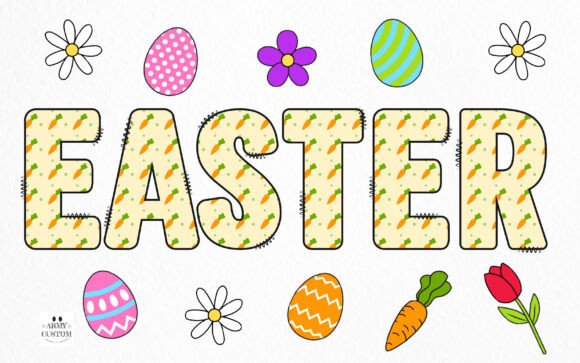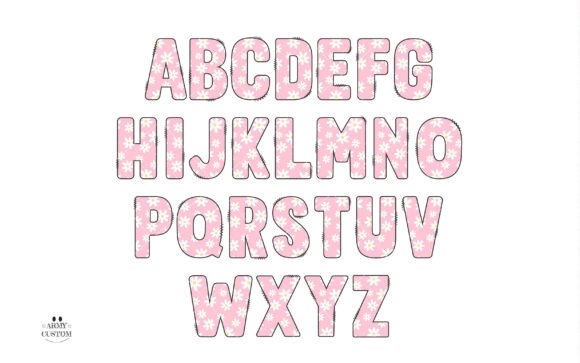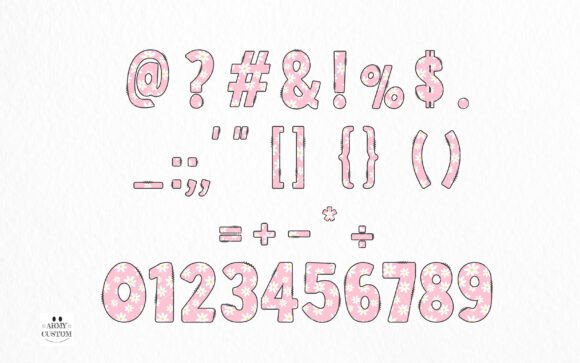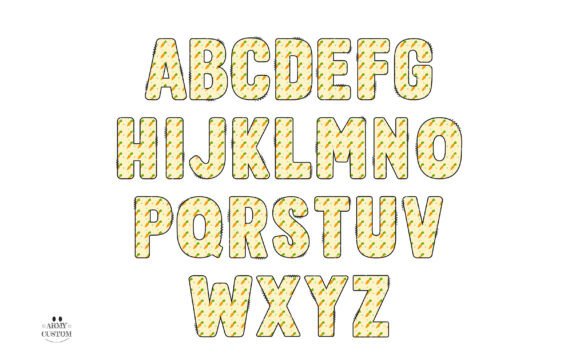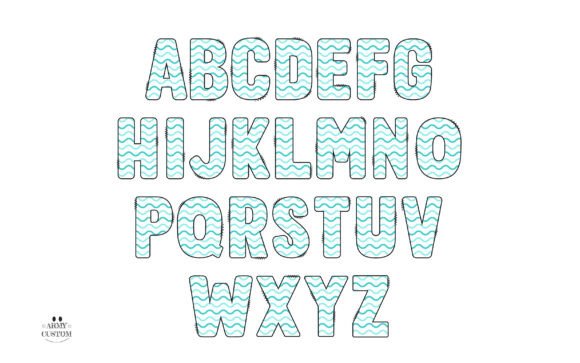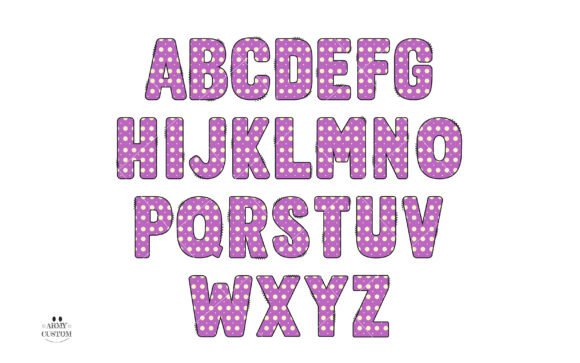
Unlocking the Joy of Easter with the Easter Bundle Font No.12
As a designer, I’ve had my fair share of moments where finding the perfect font felt like searching for a needle in a haystack. I recall working on a project for an Easter-themed craft fair, and my client requested a font that captured the essence of springtime joy. After hours of scouring through font libraries, I stumbled upon the Easter Bundle Font No.12, and it was love at first sight! ✨
I’ve had the pleasure of working with the Easter Bundle Font No.12, and here’s my honest review:
- ✅ The font’s rhythmic charm and joyful exhilaration perfectly capture the spirit of Easter celebrations.
- ✨ The OpenType features and glyphs offer a wide range of creative possibilities, making it more than just a font – it’s an artistic tool.
- ✅ The font’s vibrant aesthetic effortlessly transcribes ideas into delightful visual narratives.
As with any font, there are a few quirks to consider:
- ⚠️ Some users might find the font’s playful nature too whimsical for certain design projects.
- 🤔 The font’s eclectic style might not be suitable for very formal or traditional designs.
The Designer’s Inspiration: A Backstory
The Easter Bundle Font No.12 was designed by a creative team who wanted to capture the essence of Easter celebrations in a font. Inspired by the vibrant colors and playful spirit of spring, they crafted a font that embodies the joy and excitement of the season. The design process involved experimenting with various typography styles, from playful scripts to bold sans-serifs, to create a unique and versatile font.
| What makes the Easter Bundle Font No.12 unique? | The Easter Bundle Font No.12 stands out with its rhythmic charm, joyful exhilaration, and wide range of OpenType features and glyphs, making it an artistic tool for designers. |